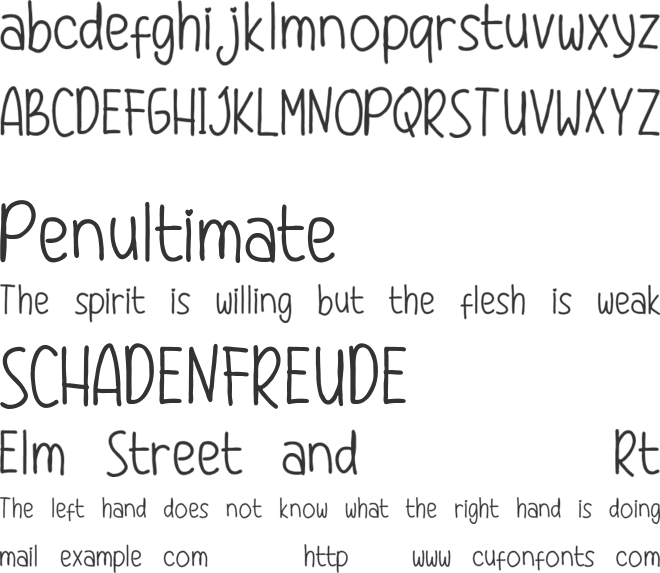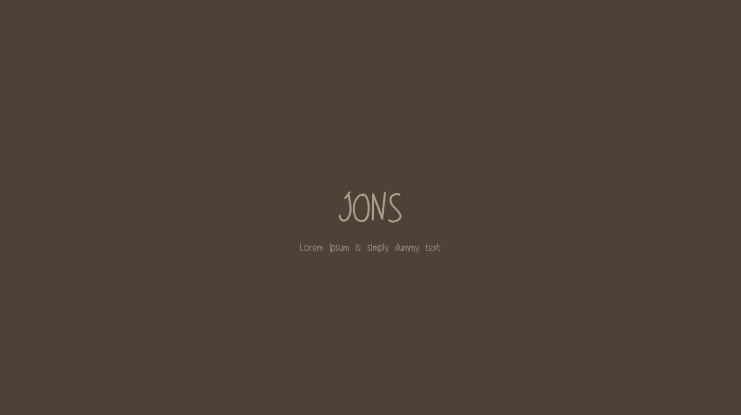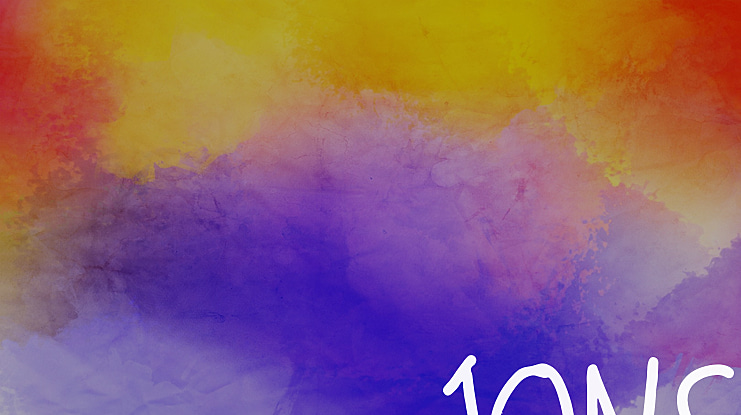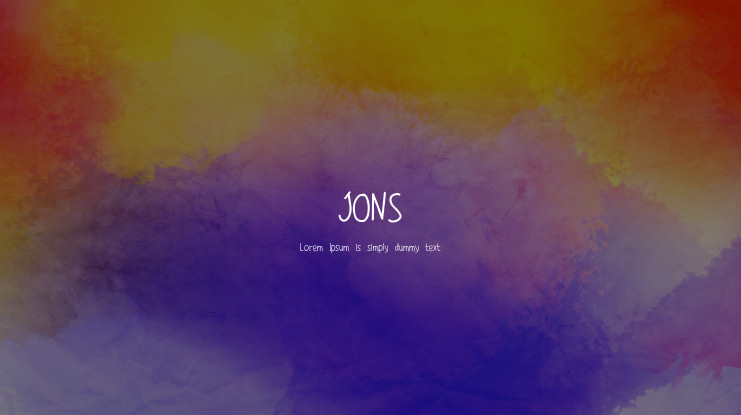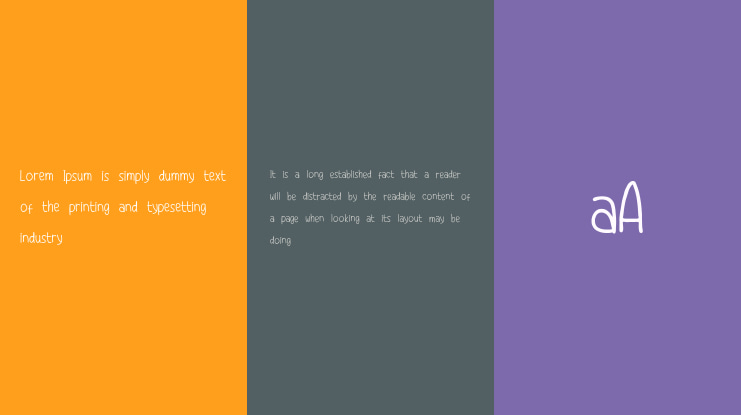
JONS Font
Jons is a lovely and cute handwritten font. It is the best choice for creating eye catching logos, branding and quotes. Every letter has a unique and beautiful touch, which will make your design come alive!